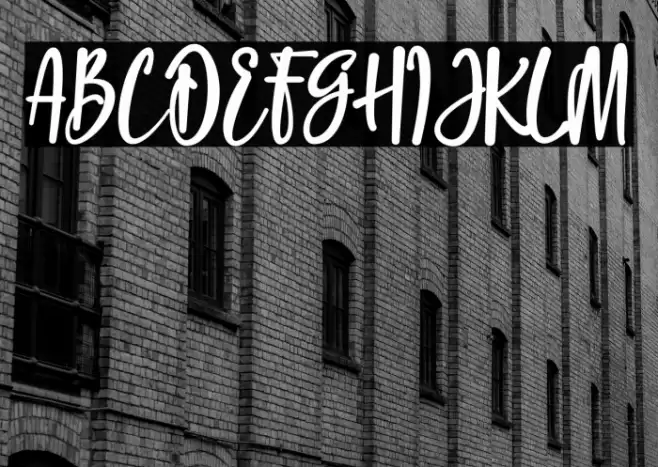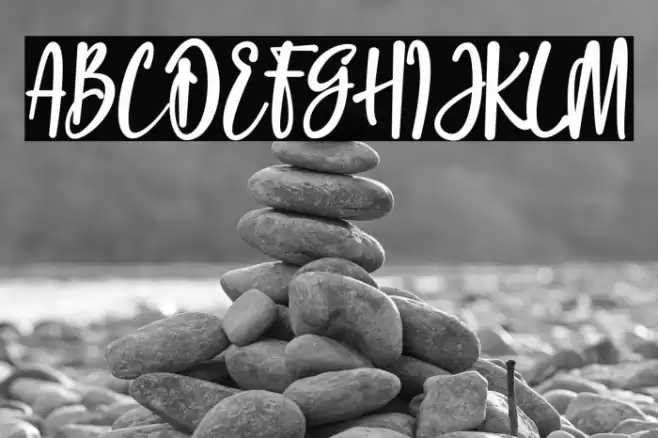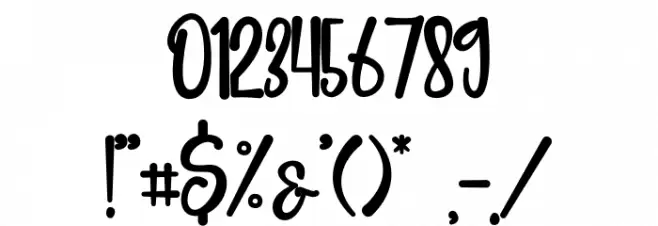
Unpossed Font
Unpossed Description
This font features a lively and expressive script style, characterized by its flowing, cursive letterforms. The uppercase letters are bold and dynamic, with a playful bounce that adds a sense of movement. The lowercase letters maintain a consistent rhythm, with loops and swirls that enhance its handwritten appeal. The numerals are clear and bold, matching the overall energetic style. Special characters are creatively integrated, maintaining the font's whimsical nature. This font is perfect for projects that require a personal touch, such as invitations, greeting cards, or branding that seeks to convey warmth and creativity.
A lively, expressive script font with bold, flowing letterforms from Uncategorized fonts.
- Font: Unpossed
- Proposed Projects: Ideal for invitations, greeting cards, personal branding, and creative projects.